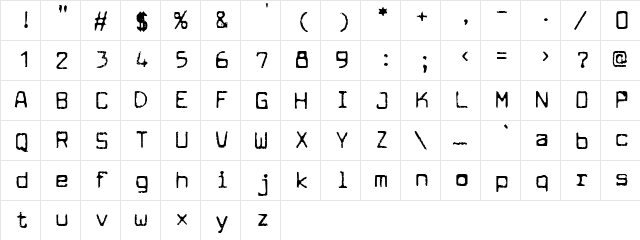
Cuomotype Regular
Design Context for Cuomotype Typeface
Cuomotype is a composed and adaptable typeface that performs quietly and consistently across a wide range of design contexts.